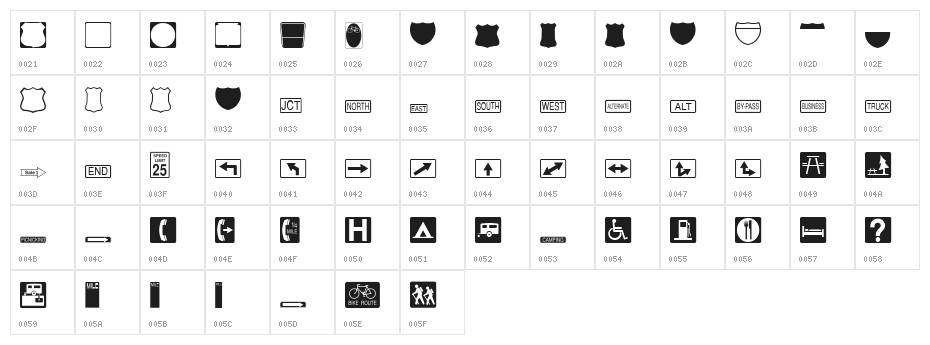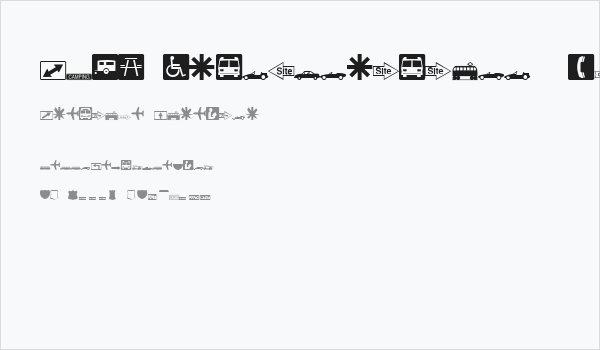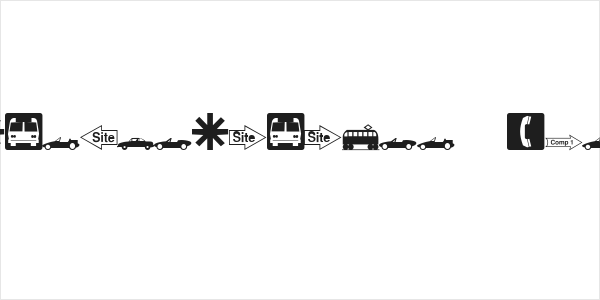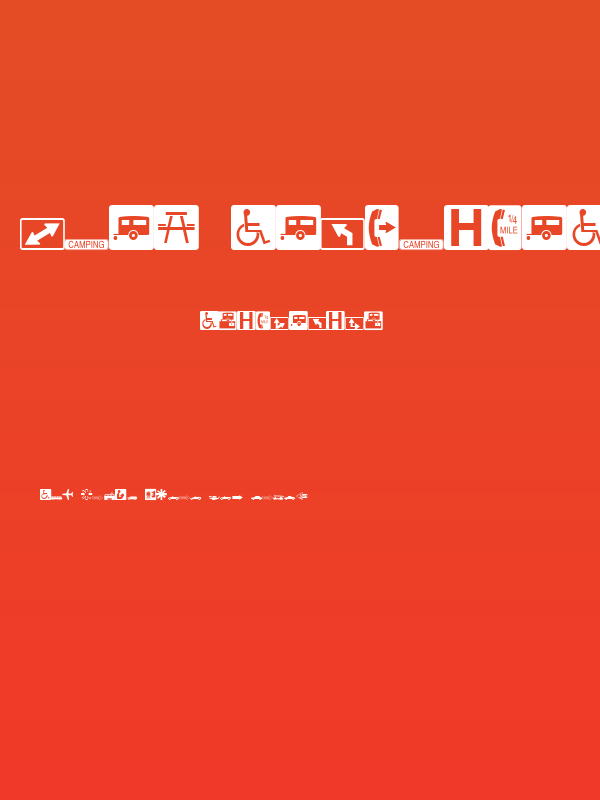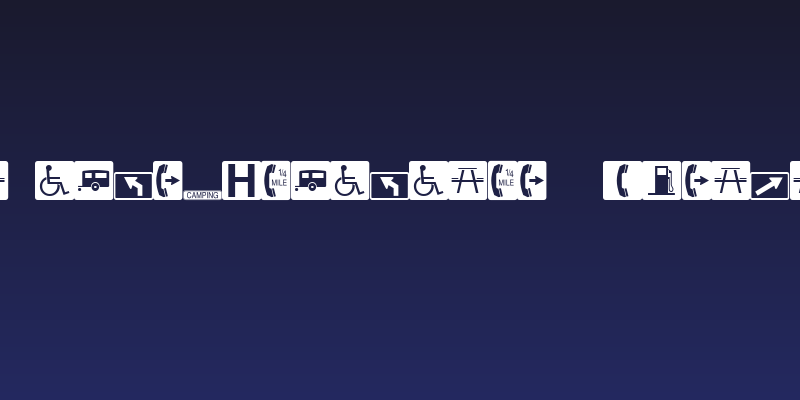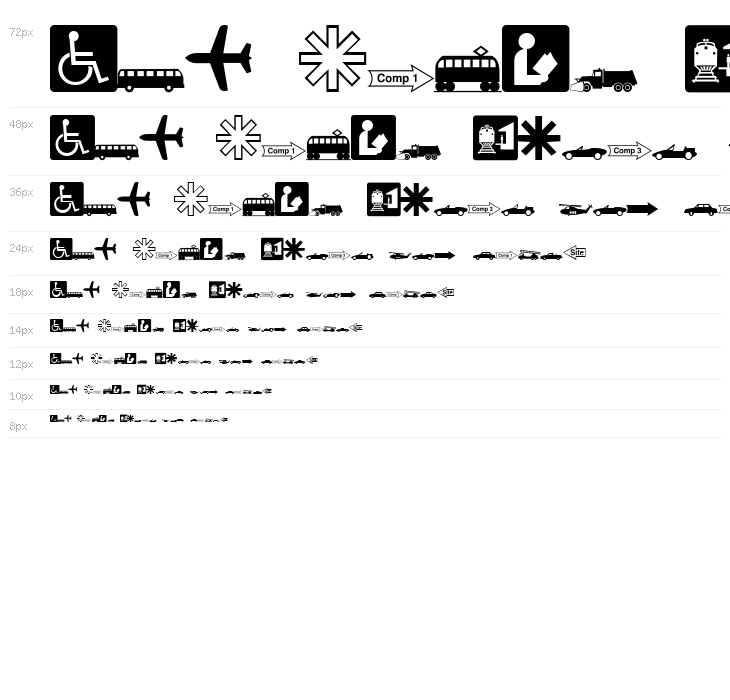
ESRI Transportation Municipal Font
ESRI Transportation Municipal Description
This set of symbols is designed for transportation and municipal signage, featuring a variety of icons that represent directions, facilities, and services. The icons include arrows for navigation, symbols for camping, picnic areas, restrooms, and transportation modes such as buses, trains, and airplanes. The style is utilitarian and straightforward, ensuring clarity and quick recognition. The icons are predominantly black and white, emphasizing contrast for visibility. The design is consistent with standard road and municipal signage, making it suitable for public spaces.
Overall StyleUtilitarian
Use CaseSignage, Public Information Displays
Proposed ProjectsIdeal for use in public transportation systems, municipal signage, road signs, and informational displays in parks and recreational areas.